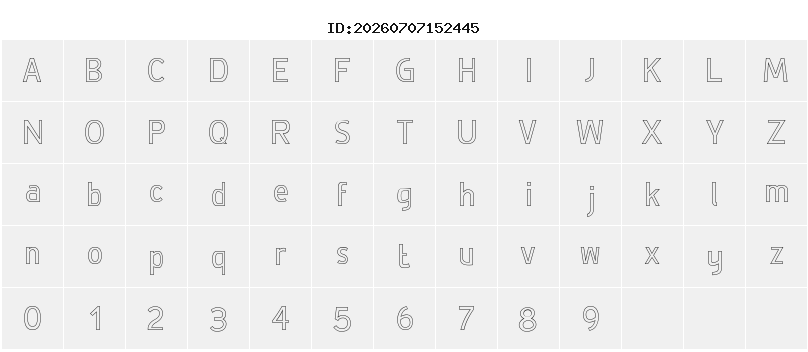
• Font Name: De Luxe Hollow
• Designer: Dichi
About De Luxe Hollow.ttf
De Luxe Hollow.ttf is a modern, elegant sans-serif font designed for ultimate readability and visual harmony. Perfect for branding, headlines, web design, and print materials.